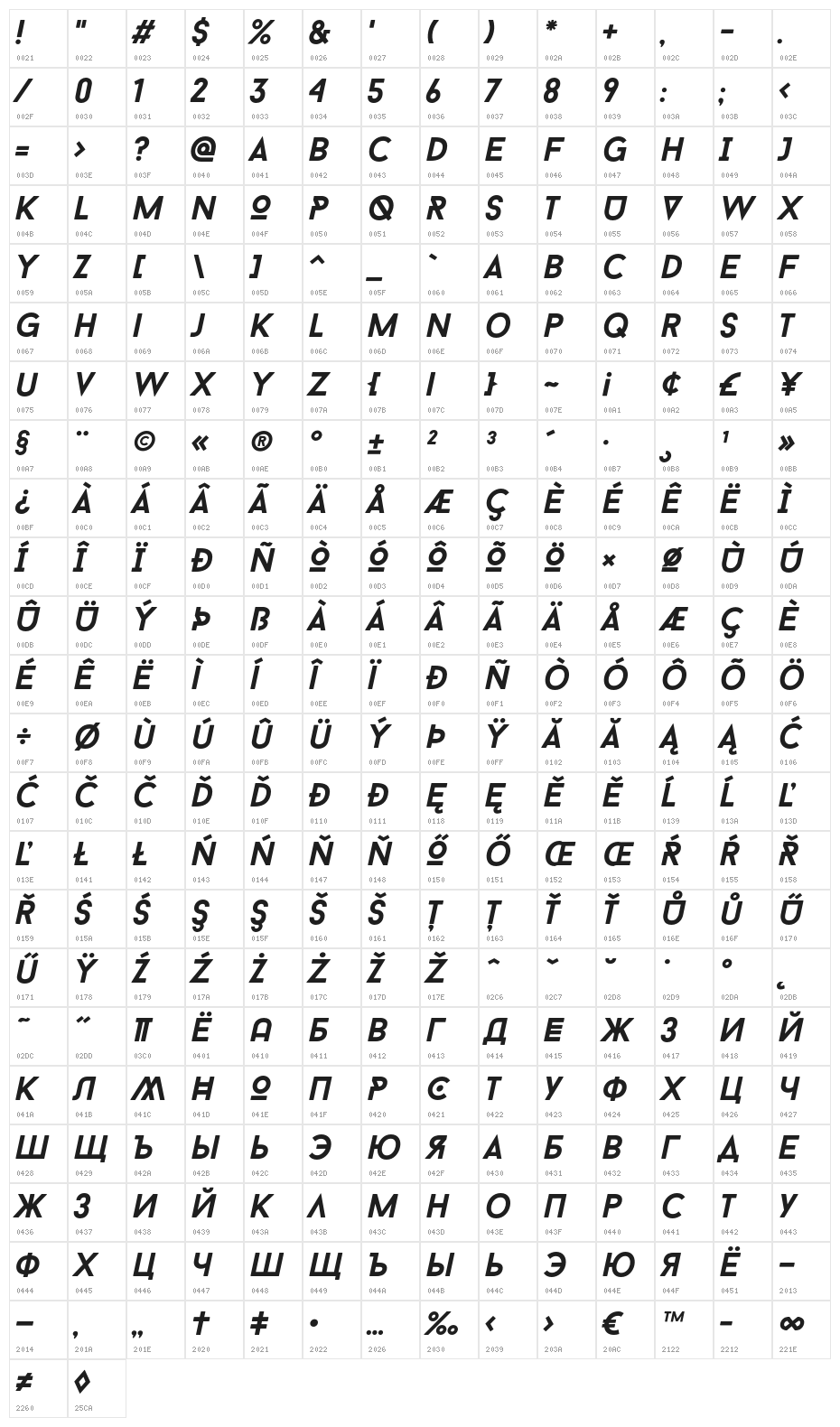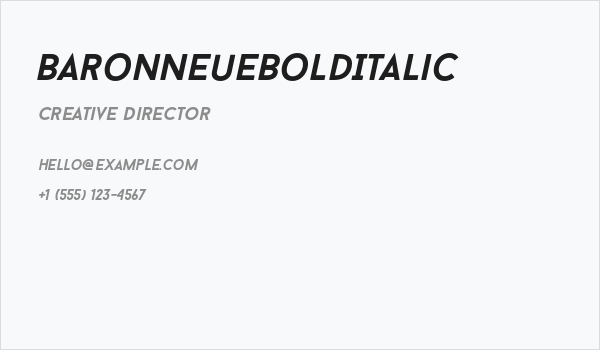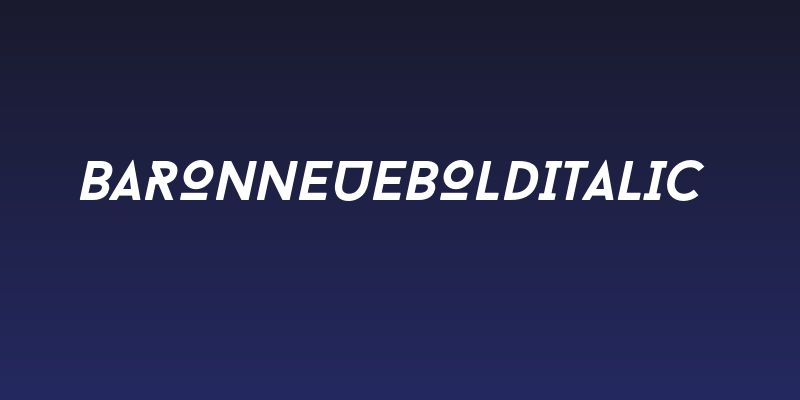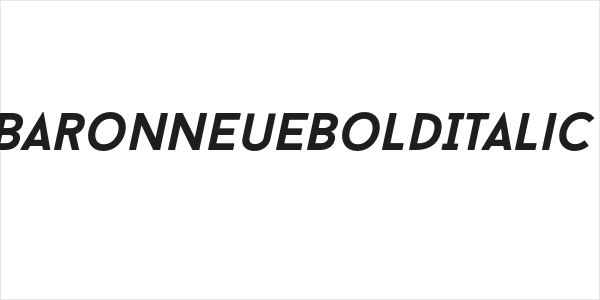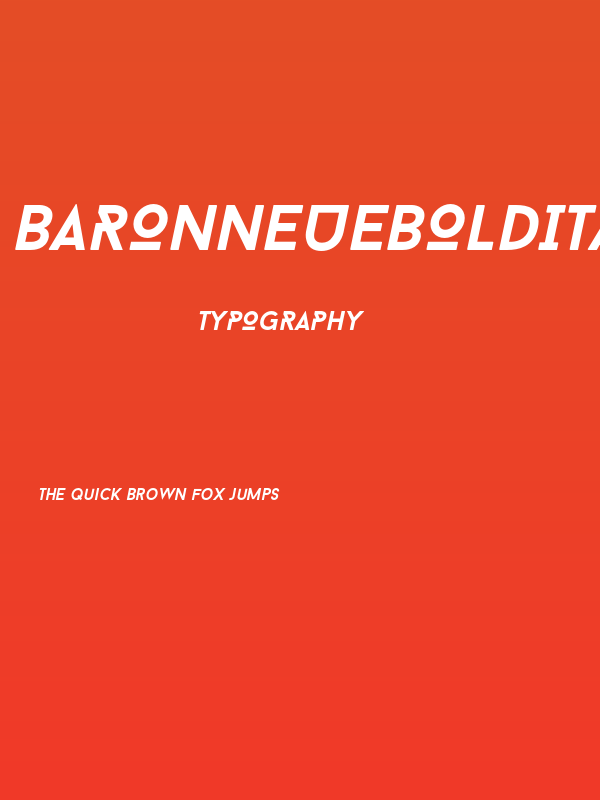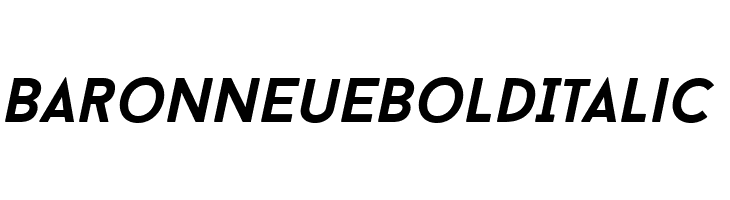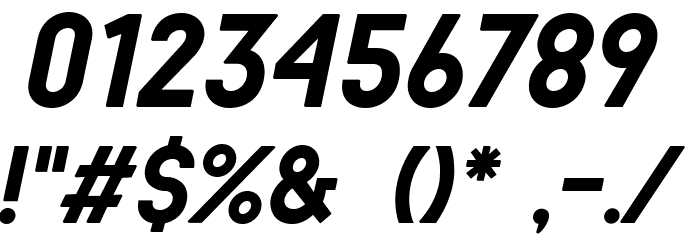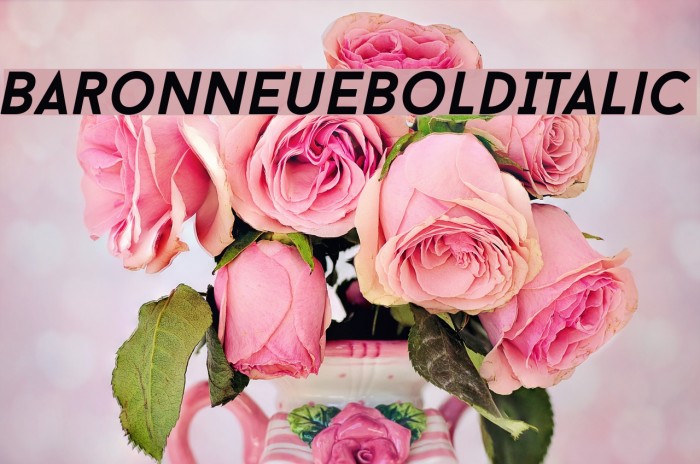
BaronNeueBoldItalic Font
| Cas d'utilisation | Headlines, Logos, Branding |
| Projets proposés | Ideal for branding, advertising, headlines, and digital media projects that require a modern and impactful look. |